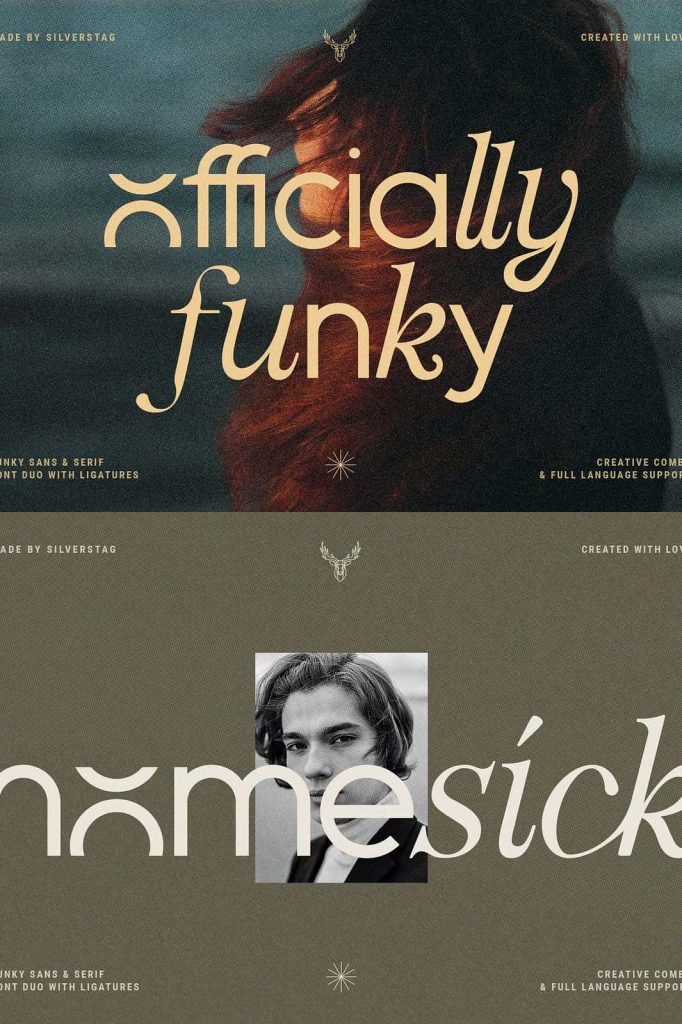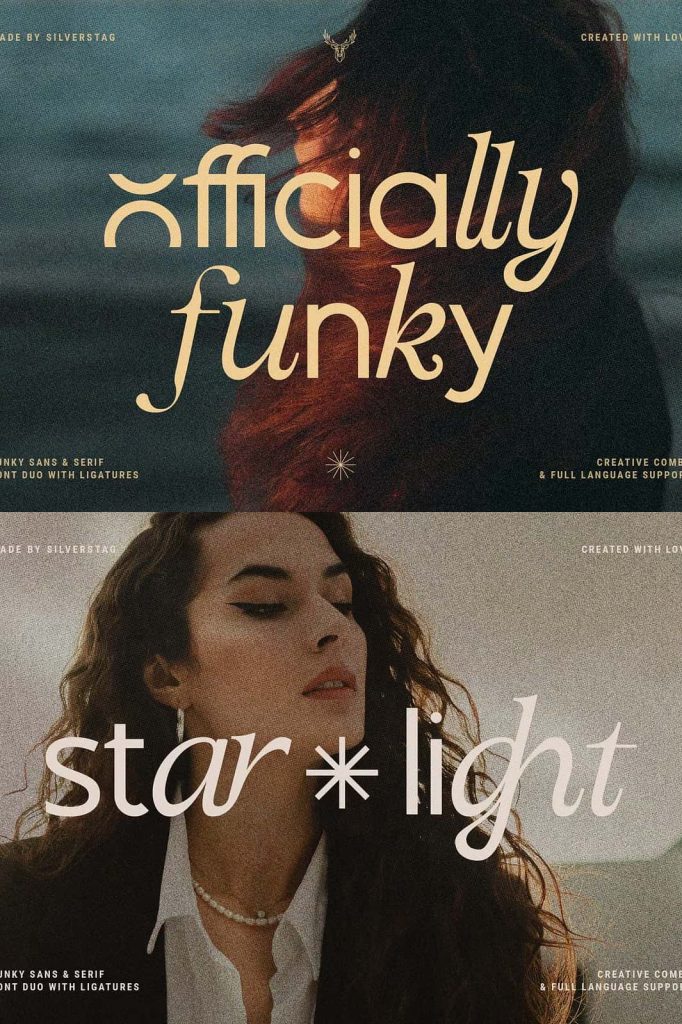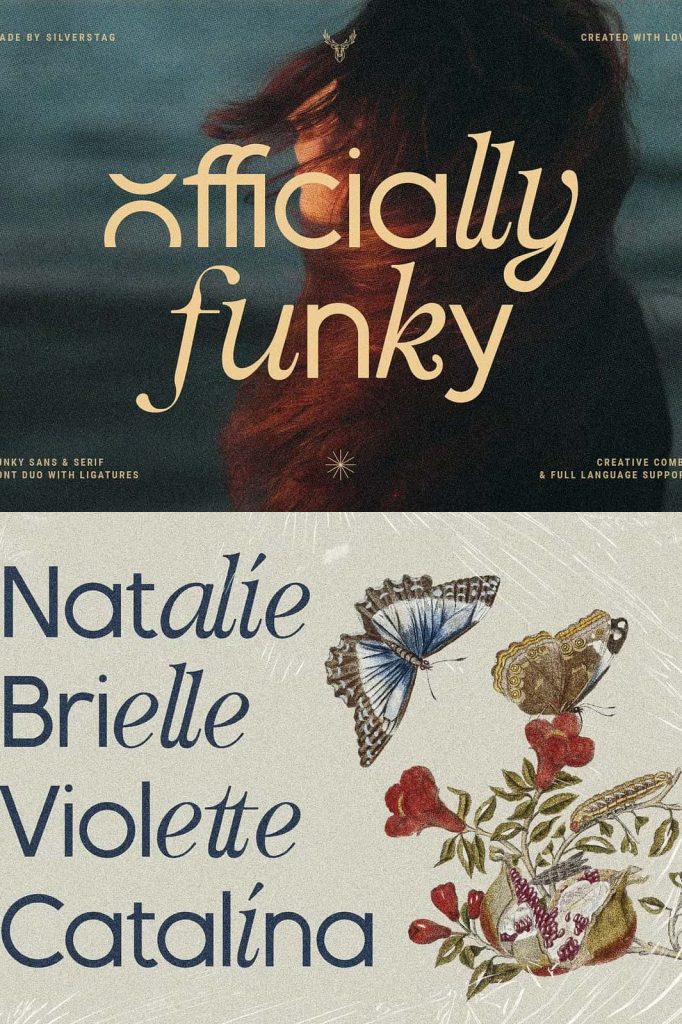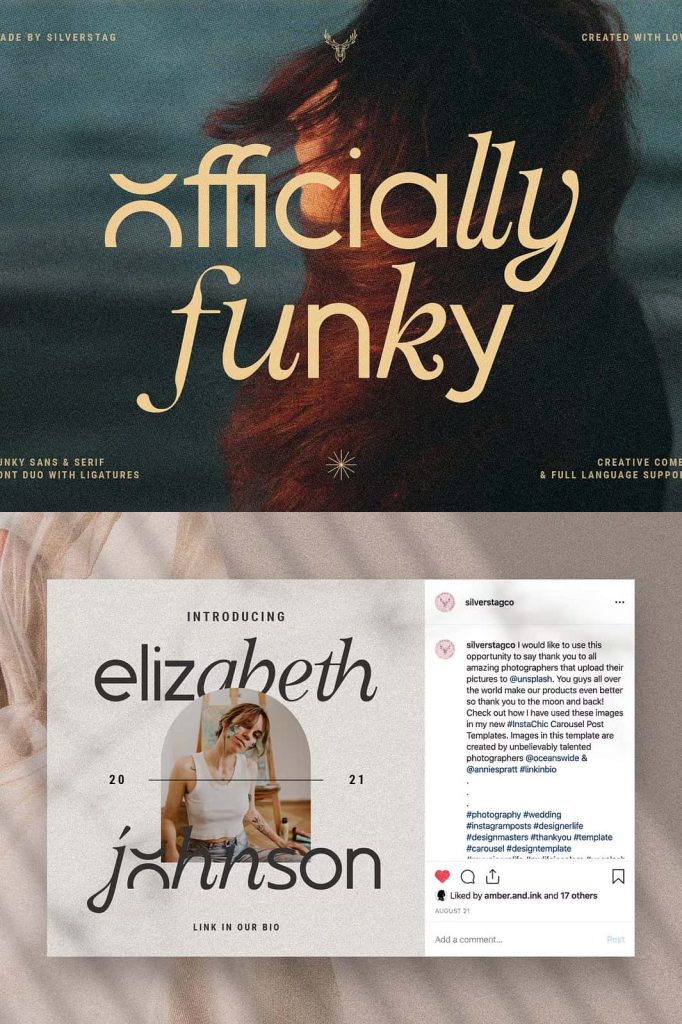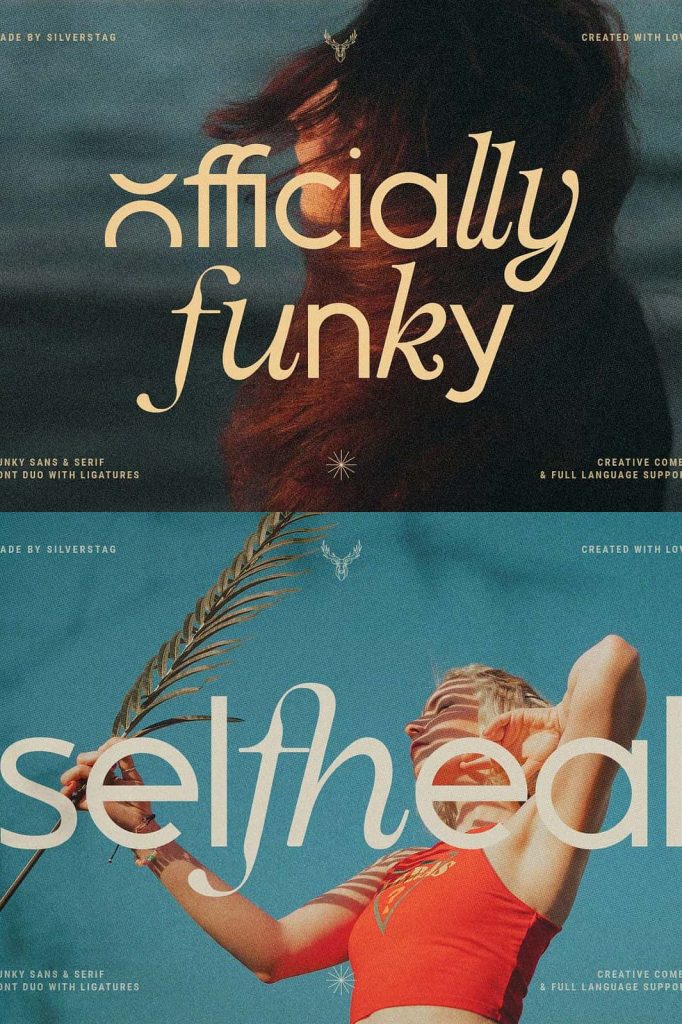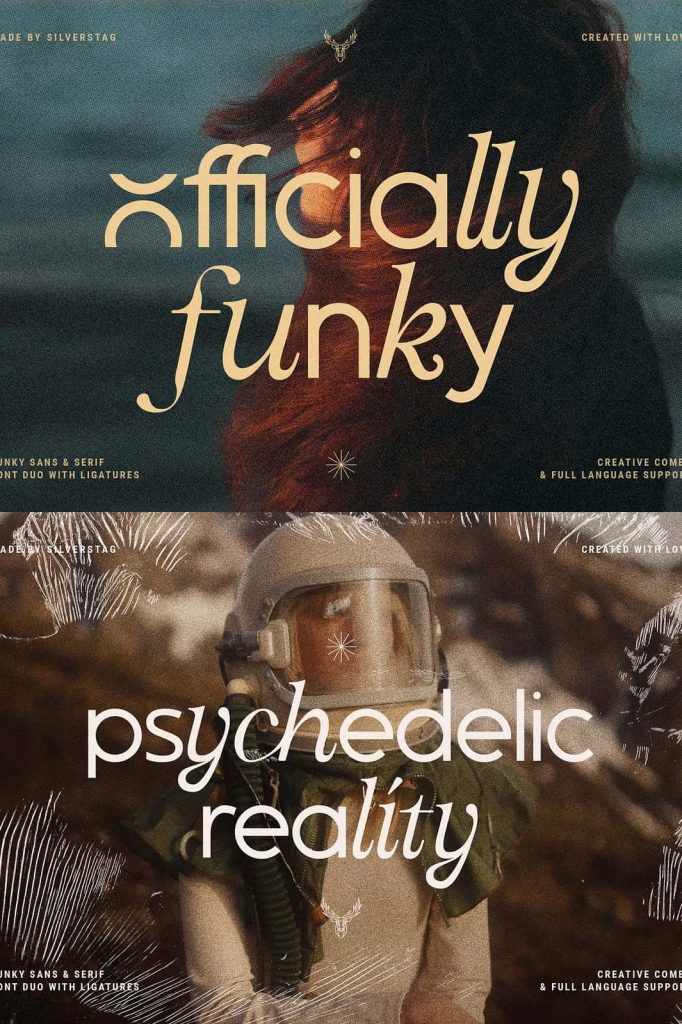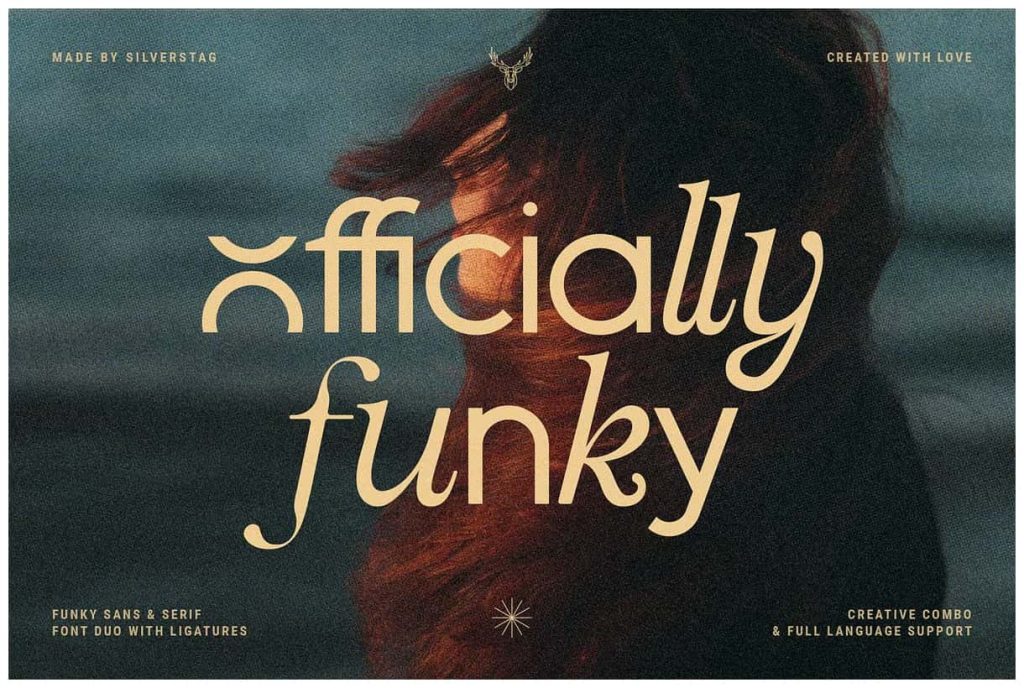
Officially Funky – Modern Font Duo
officially funky is a brand new, creative & unique font duo. It is a part of my font duo series and after French Lovers & Silver Garden